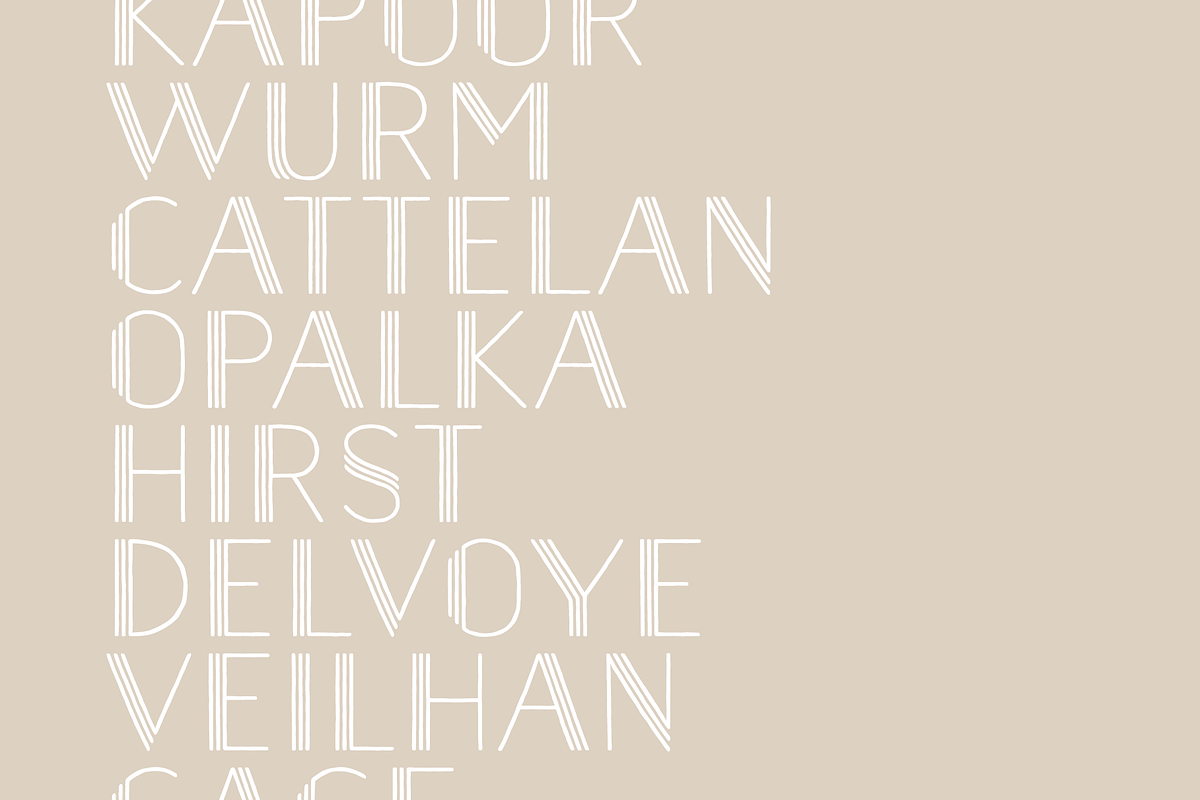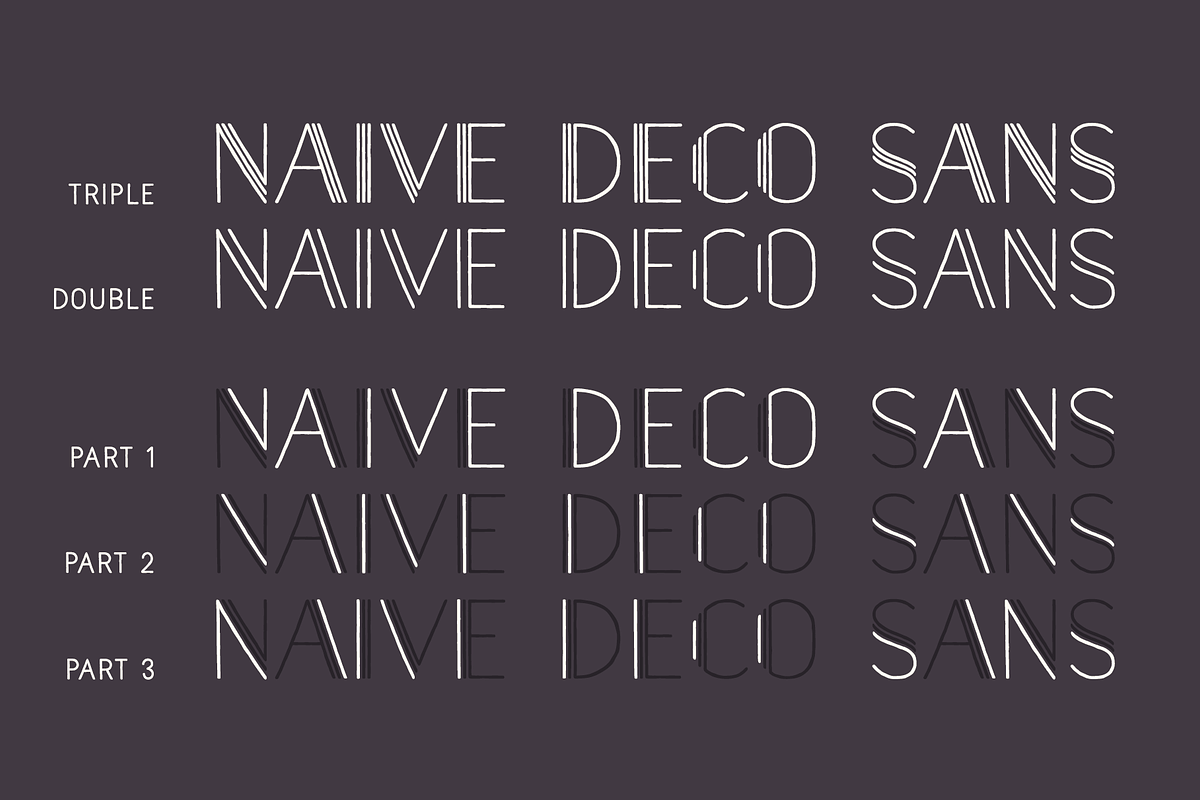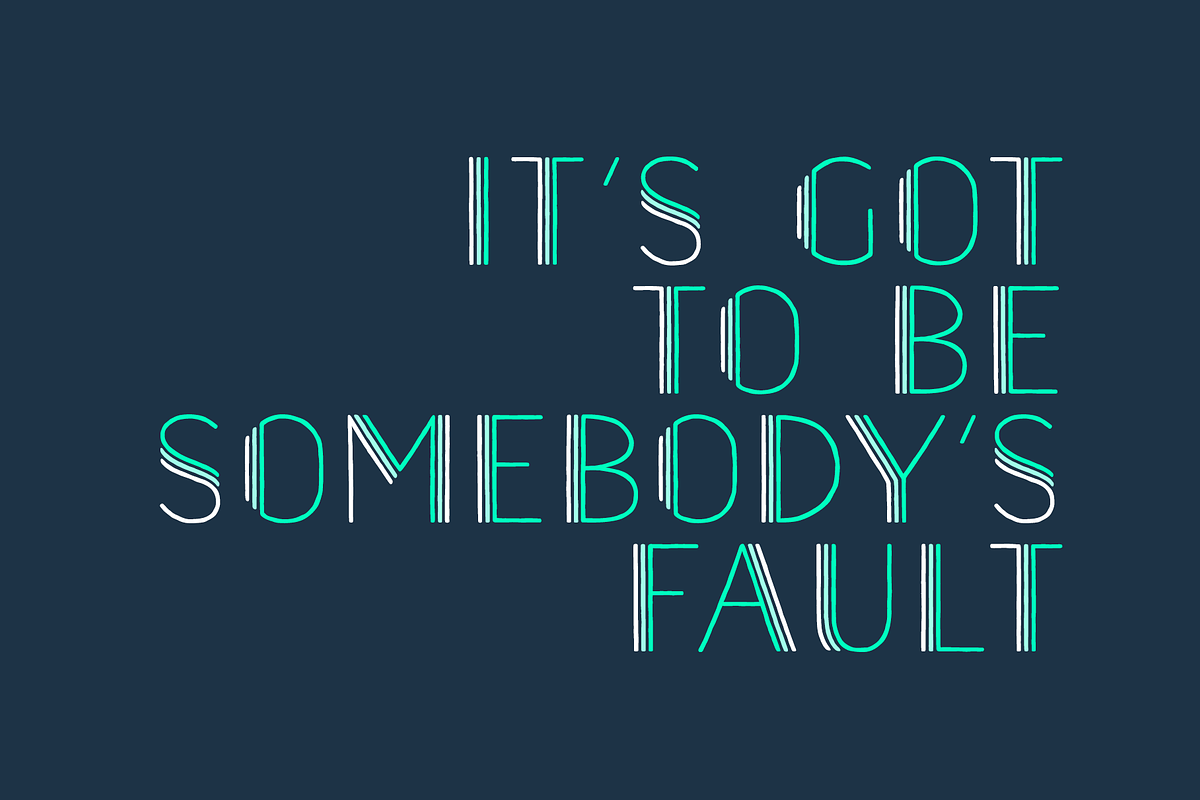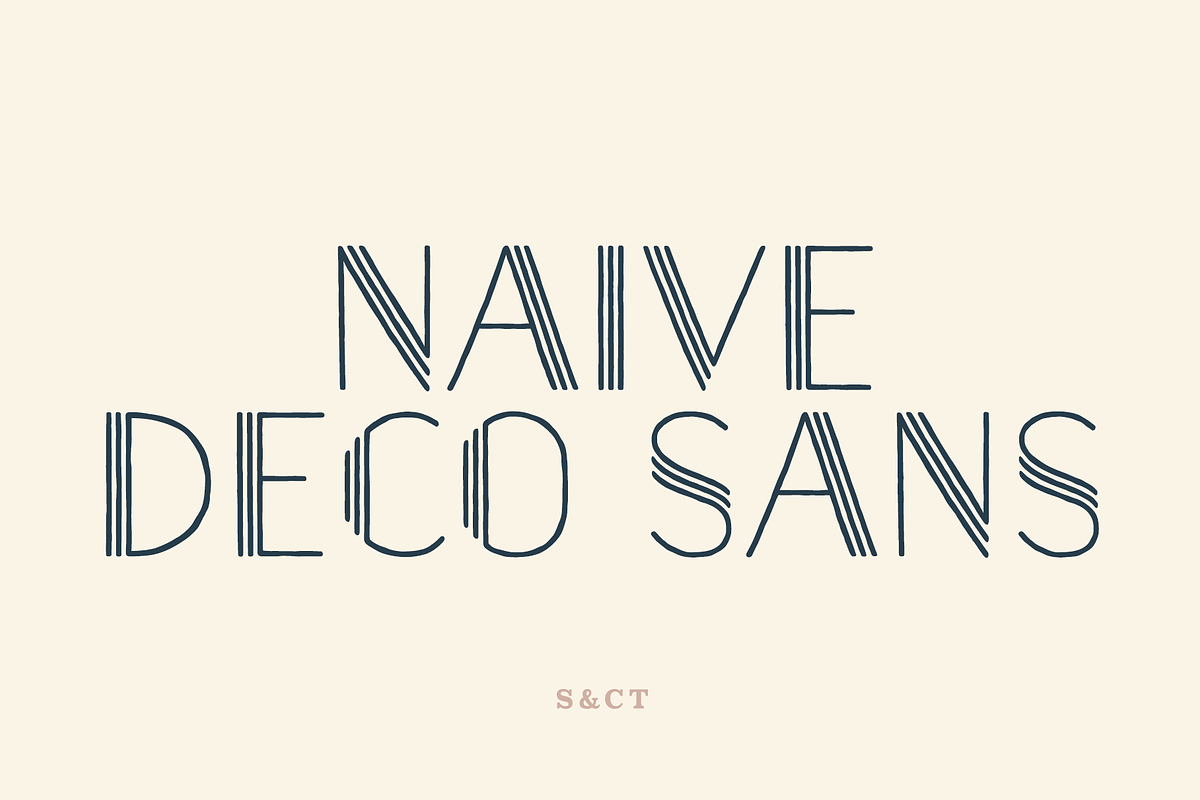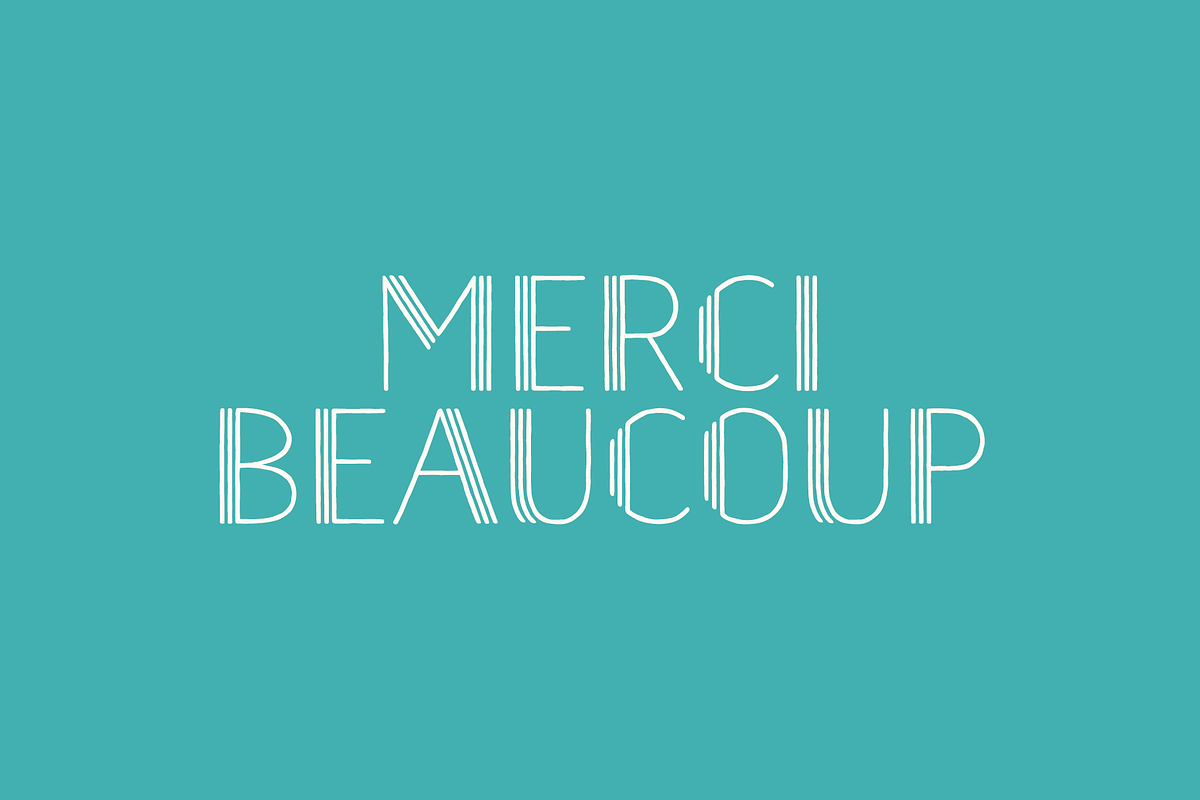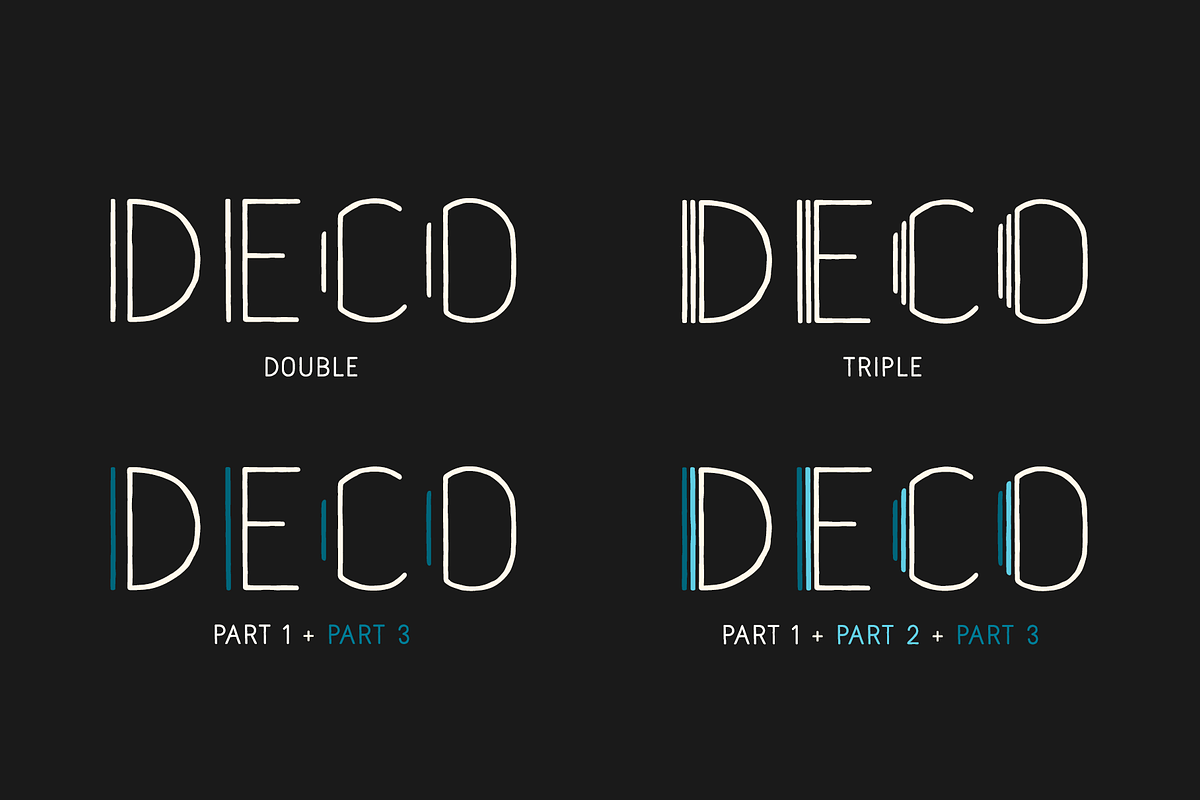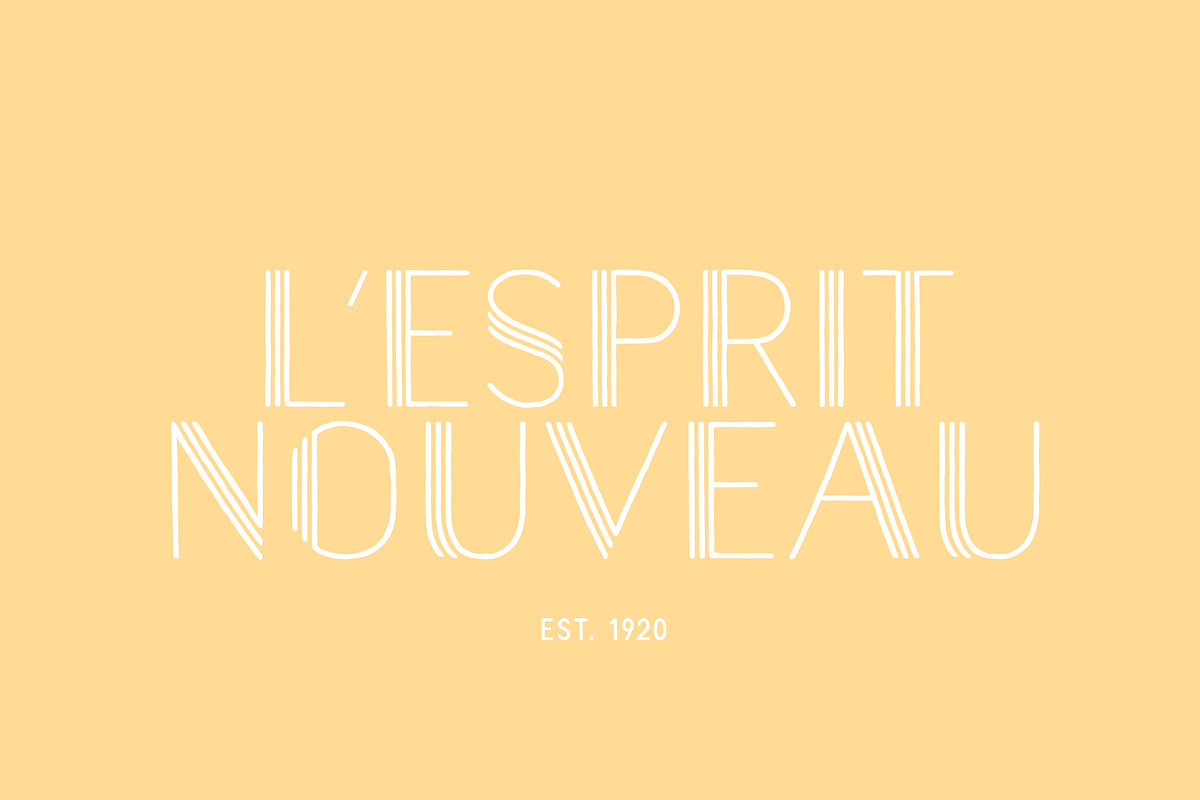
Naive Deco Sans Font Collection
Naïve Deco Sans is a layered sans serif handwritten font designed by Fanny Coulez and Julien Saurin in Paris. Our goal was to draw a font with finely irregular lines that give a human and whimsical feeling.
It is available in two versions: double or triple lines. The font is also decomposed in three different parts that you can use to improve your designs with multiple colors, giving to the font a deco touch. To do so, you can simply superimpose the parts with a compatible software like Photoshop and choose a color for each.
Naïve Deco Sans Double
Naïve Deco Sans Triple
Naïve Deco Sans Part 1
Naïve Deco Sans Part 2
Naïve Deco Sans Part 3